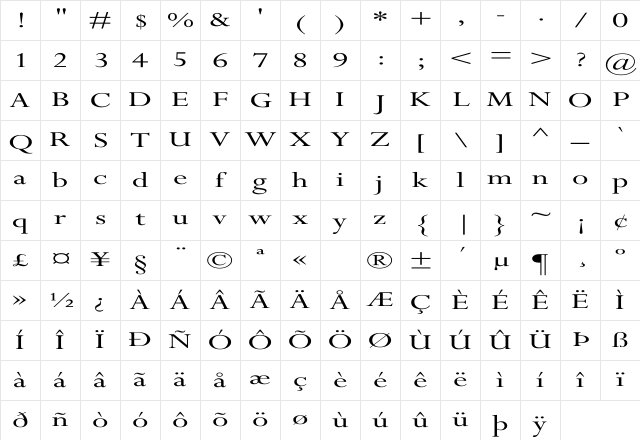
Perpetua Ex Regular
Design Context for Perpetua Ex
Perpetua Ex is a composed and adaptable typeface that performs quietly and consistently across a wide range of design contexts.